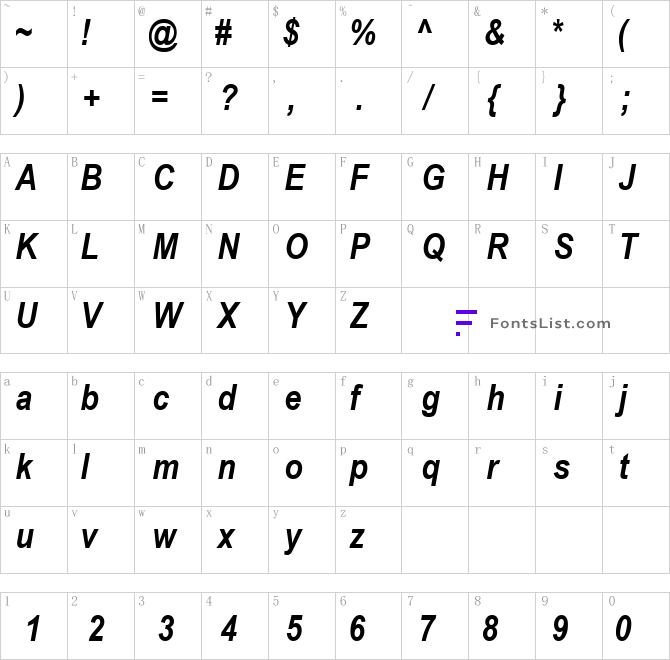
- Font Name:Arial Narrow
- Subfamily:Gras Italique
- Subfamily:Arial Narrow Bold Italic : 1991
- Full Name:Arial Narrow Gras Italique
- PostScript:ArialNarrow-BoldItalic
Arial-Narrow-Bold-Italic-copy-1-.ttf is a very beautiful artistic font, Arial-Narrow-Bold-Italic-copy-1-.ttf is widely used in the design and printing of various books and pictures,Arial-Narrow-Bold-Italic-copy-1-.ttf has a strong visual impact,Arial-Narrow-Bold-Italic-copy-1-.ttf is a commonly used font in newspapers, magazines and books, and is used in posters, e-commerce Poster design, store design, logo design, font design and other fields.Arial-Narrow-Bold-Italic-copy-1-.